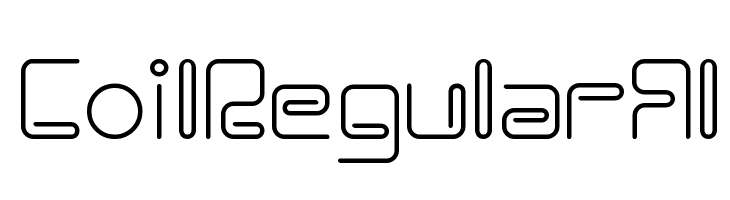
A futuristic, continuous line font with a modern geometric style.
A modern, tubular font with smooth curves and a futuristic design.
A modern, geometric font with a continuous line style, perfect for a futuristic look.
A futuristic, tubular font with a bold, geometric design.